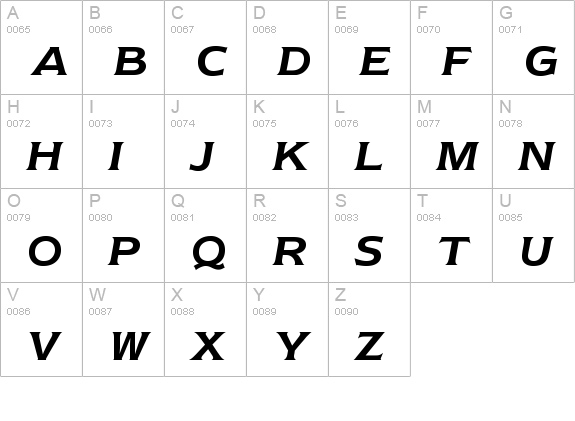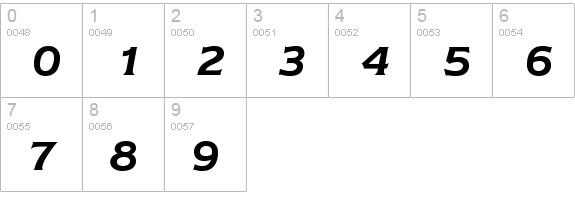
Newtext Demi Italic Font Details
Newtext Demi Italic is a sub-bold, structured, italic variant in the Newtext typeface family \xE2\x80\x94 well suited to sub-headlines and emphasised passages.
Newtext Demi Italic is a modern and stylish font that adds a touch of sophistication to any design project. With its slanted and elegant appearance, this typeface exudes a sense of professionalism and creativity. The italicized characters give a sense of movement and flow, making it perfect for conveying a sense of dynamism and energy. Perfect for use in editorial designs, branding materials, and marketing collateral, Newtext Demi Italic is a versatile font that can be used in a variety of contexts. Its legibility and readability make it a great choice for both print and digital applications. And the best part? Newtext Demi Italic is completely free to download at FontsMarket.com. So whether you're a designer looking to elevate your projects or a business owner looking to enhance your branding, this font is a fantastic choice that won't cost you a thing. Download Newtext Demi Italic today and add a touch of elegance to your designs.